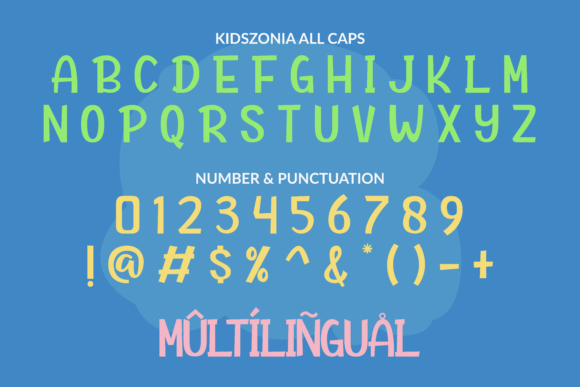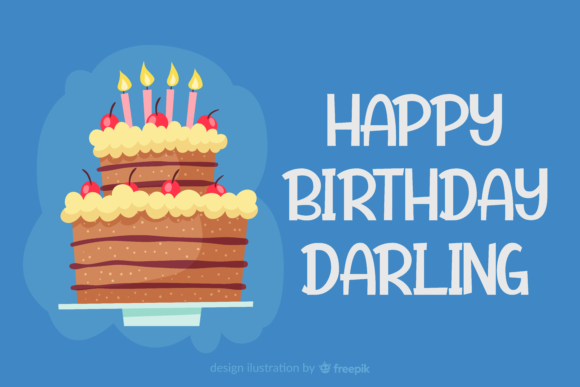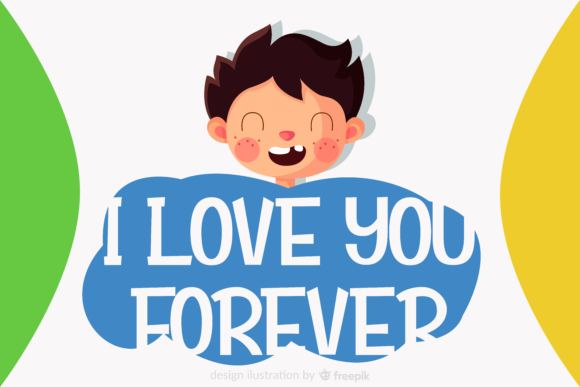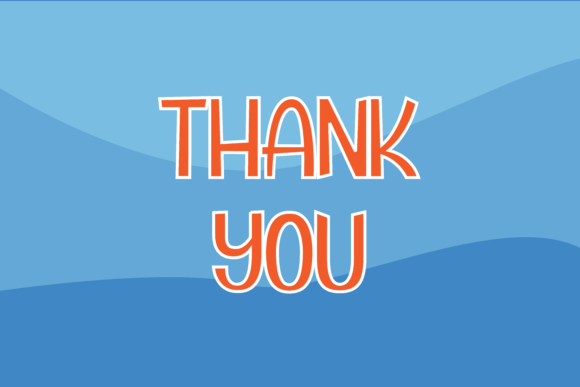
Introduction to Kidszonia Font
Do you remember the feeling of scribbling with crayons, letting your imagination run wild, and bringing your most creative ideas to life? That sense of freedom and joy is exactly what the Kidszonia Font embodies. This enchanting display font is designed to capture the essence of childlike playfulness, making it the perfect addition to any kids or school project.
As a designer, you know the value of having high-quality design resources at your fingertips. The Kidszonia Font is a free download that offers a transparent background, making it easy to use in any creative project. Its unique and quirky design is sure to brighten up even the most mundane designs, turning them into true standouts. Whether you’re working on a school project or a commercial design, this font is a valuable asset to have in your design arsenal.
- Unique characteristics include a playful and modern aesthetic, making it perfect for designing children’s content, educational materials, and more.
Honest Review: Kidszonia Font
I recently stumbled upon the Kidszonia Font while searching for a unique design resource for a creative project. After exploring its features, I’m excited to share my honest review.
- The font’s playful and whimsical design is perfect for kids-related projects or anything that requires a fun, youthful vibe.
- It’s a high-quality font with a clear and crisp texture, making it ideal for digital use.
- The transparent background option allows for seamless integration with any design element.
One notable limitation is the font’s limited character set, which might not be suitable for extended text-based projects.
The Kidszonia Font is a great addition to any designer’s toolkit, especially for creative projects that require a unique and playful touch. While it may have some limitations, its high-quality design and free download make it a worthwhile resource for designers looking to add some personality to their work.
The Kidszonia Font is a free design resource that can be used for a wide range of creative projects. With its high-quality and playful design, it’s perfect for making your projects stand out.
- Use the font with a transparent background to create a playful and modern look.
- Combine the font with other design elements, such as graphics and images, to create a unique and eye-catching design.
- Experiment with different font sizes and styles to create a visually appealing design.
The Kidszonia Font is commonly used in:
- Children’s educational materials
- Playful marketing campaigns
- Design projects that require a fun and modern look
The Kidszonia Font is designed to be a high-quality font, with clear and crisp typography. It’s optimized for use at various font sizes, ensuring that it looks great on both small and large scales. With its high-quality design, you can be confident that your design will look professional and polished.